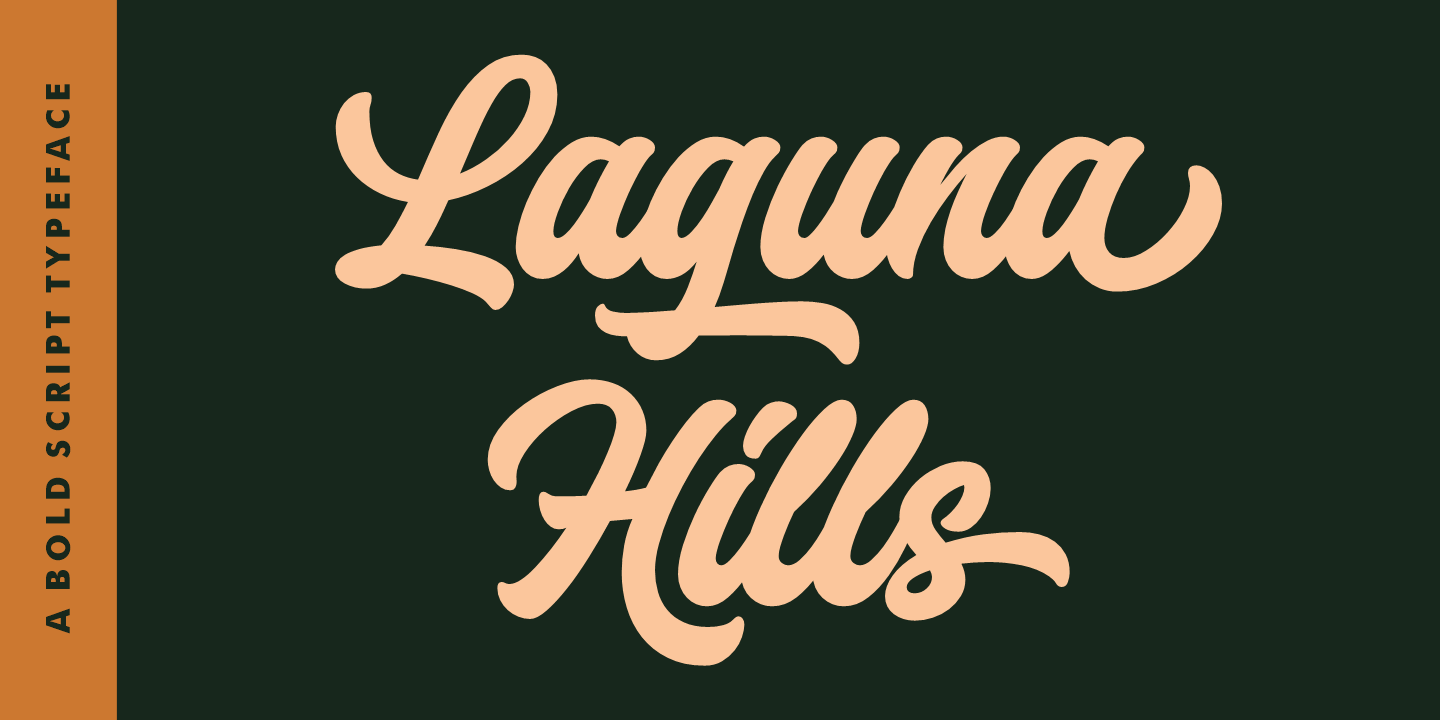
Laguna Hills Font is ideal for coastal resort branding, beachside café signage, California lifestyle marketing, surf shop logos, waterfront restaurant menus, ocean-view property sales, seaside boutique displays, sunset cruise promotions, coastal wellness retreats, and serene projects that celebrate the relaxed elegance and natural beauty of coastal California living with sophisticated beach charm.
What makes Laguna Hills Font so exciting is its perfect capture of California coastal sophistication through flowing letterforms that embody the relaxed luxury and natural beauty of seaside living. This typeface radiates the essence of ocean breezes and hillside views, featuring gentle curves and organic flow that suggest rolling waves and coastal landscapes while maintaining excellent readability for contemporary hospitality and lifestyle applications that celebrate coastal elegance.
Laguna Hills Font family encompasses multiple coastal variations: Regular, Bold, Light, Breeze, Sunset, Wave, Coastal, and Serene versions. Each style maintains the font's inherent seaside character while offering different levels of relaxation and coastal appeal, providing designers with comprehensive tools for creating authentic California beach aesthetics that resonate with audiences seeking coastal lifestyle and sophisticated relaxation experiences.
The coastal sophistication of Laguna Hills Font Free Download makes it exceptionally valuable for hospitality and lifestyle industries promoting California coastal culture. This font successfully communicates relaxed luxury and natural beauty, making it perfect for brands that want to evoke the aspirational lifestyle of coastal California and attract audiences seeking sophisticated beach experiences. Its flowing character works beautifully across both digital coastal platforms and premium resort materials, while its distinctive seaside design creates immediate emotional connection with audiences who appreciate California coastal living and sophisticated beach culture.